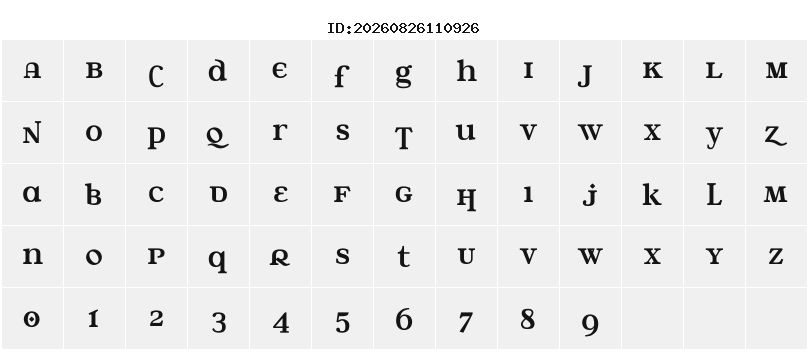
Water Street Preview
• Font Name: Water Street
• Designer: Darren Rigby
• Manufacturer: Starving-4 Entertainment
• Description: A wacky little serif font.